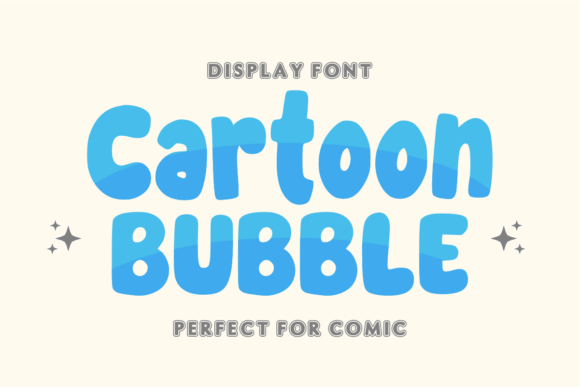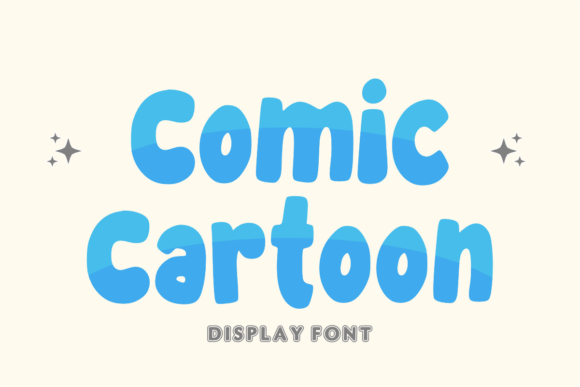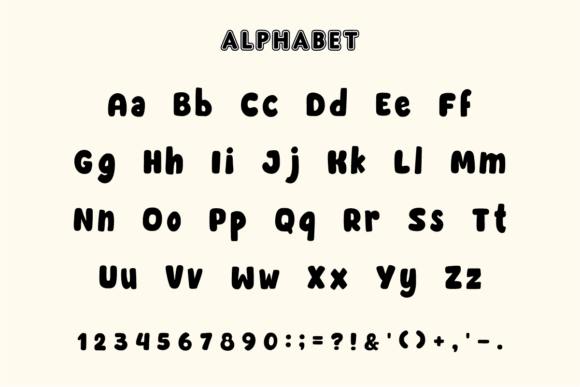
Discover the Joyful World of Chewy Bubble Font
I’ll never forget the moment I stumbled upon the perfect font for a whimsical children’s book project. I was on a tight deadline, and my design just wasn’t coming together. The text felt flat, and I couldn’t shake the feeling that something was missing. That’s when I discovered Chewy Bubble font. Its bouncy, playful letters instantly brought my design to life, and I knew I’d found the perfect match. In this article, I’ll share my journey with Chewy Bubble, its unique features, and how you can make the most of this delightful font in your creative projects.
A Personal Review of Chewy Bubble
- ✨ Unique Character Set: Each letter in Chewy Bubble has its own distinct charm, making your text feel personalized and fun.
- ✅ Playful Quality: This font effortlessly stands out, leaving a memorable imprint on your designs.
- 💡 Versatility: Chewy Bubble finds its home in various creative endeavors, including sublimation designs on t-shirts, mugs, tote bags, and animations.
- 🎉 Comic Titles: It’s an ideal choice for eye-catching comic titles that need a playful touch.
While Chewy Bubble is an amazing font, there are a few things to keep in mind:
- ⚠️ Legibility at Small Sizes: Like many script fonts, Chewy Bubble can be challenging to read at very small sizes. It’s best used at larger sizes where its playful details can shine.
- 🤔 Pairing with Other Fonts: Due to its distinctive style, Chewy Bubble can be a bit tricky to pair with other fonts. Stick to simple, clean fonts for body text to create a nice contrast.
The Story Behind Chewy Bubble
Chewy Bubble was designed with the intention of bringing joy and playfulness to the world of typography. Its creator, inspired by the whimsical world of children’s literature, aimed to craft a font that would make designs feel approachable and fun. With its bubbly character set and amiable persona, Chewy Bubble quickly became a favorite among designers and crafters.
Q: What is Chewy Bubble font best used for?
A: Chewy Bubble is ideal for creative projects that require a playful touch, such as children’s books, comic titles, sublimation designs on t-shirts, mugs, tote bags, and animations.
Q: Is Chewy Bubble difficult to read?
A: Like many script fonts, Chewy Bubble can be challenging to read at very small sizes. It’s best used at larger sizes where its playful details can shine.